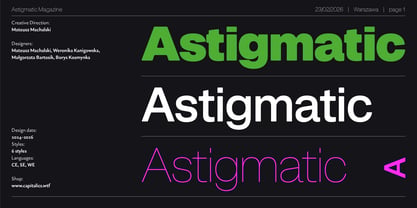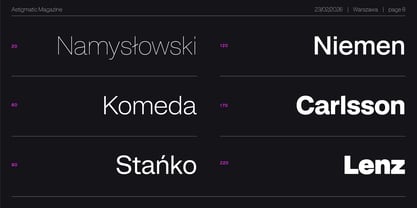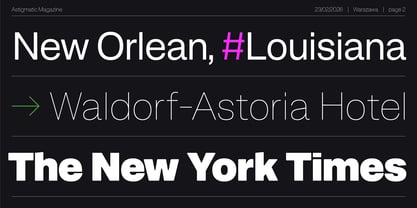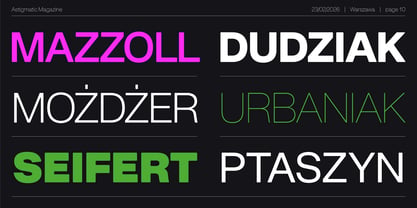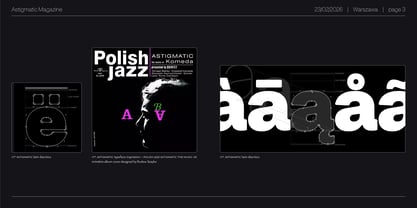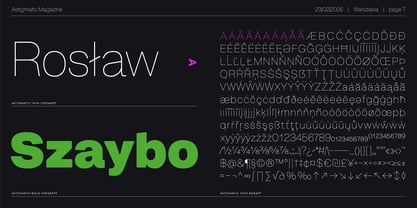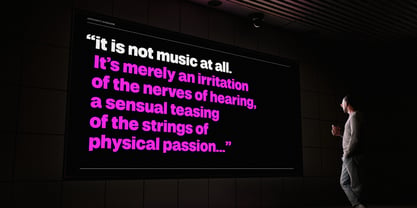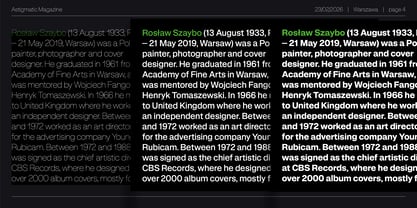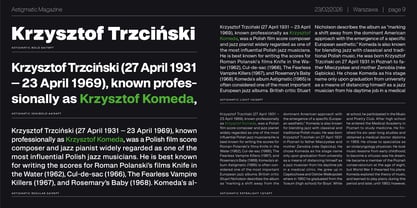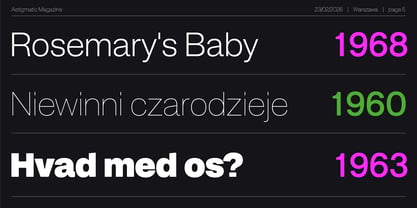
Astigmatic
by Machalski
The Astigmatic Font Family was designed by Mateusz Machalski and published by Machalski. Astigmatic contains 6 styles and family package options. More about this family
Astigmatic is an original reinterpretation of geometric grotesques from 1960–1989, a period when printing and typesetting technologies actively shaped letterforms. The tension between geometric precision and occasional “pulsation” of form emerged from the realities of working with Letraset, phototypesetting, and hand-traced lettering for design projects. It was in these processes that slight shifts, ink spreads, and imperfections creating truly unique characters. Astigmatic consciously embraces this visual language, treating the “error” as an expressive value rather than a flaw. The typeface has a strong, poster-driven character and works especially well in visual identities, titles, posters, and covers. One of its key inspirations is the work of Rosław Szaybo, particularly his designs for Krzysztof Komeda, rich in rhythm, tension, and visual ambiguity. Astigmatic does not pretend to be neutral; instead, it builds a narrative and insists on being noticed. Design team: Mateusz Machalski, supported by: Weronika Kanigowska, Małgorzata Bartosik & Borys Kosmynka
Dr hab. Mateusz Machalski, Associate Professor (b. 1989) – Vice-Rector for Artistic Affairs at the Academy of Fine Arts in Warsaw. Designer, typographer, lecturer and researcher specializing in visual communication and graphic design. He graduated with Rector’s Honours from the Faculty of Graphic Arts at the Academy of Fine Arts in Warsaw (2009–2014), where he currently teaches at the Multimedia Artistic Creation Studio. Named Designer of the Year 2019 at the Polish Graphic Awards, he has been repeatedly awarded in national and international competitions, including KTR, Ascender 2018 – Type Directors Club New York, MUSTHAVE, The DieLine, Red Dot Design, The Best of Design 2018 – Klub Twórców Reklamy, and Animator 2020 – DESIGN ALIVE. He is a five-time recipient of the Polish Ministry of Culture’s scholarship, a laureate of the Ministry of Science and Higher Education’s scholarship for outstanding young researchers, and of the “Young Poland” programme by the National Centre for Culture. He was awarded the Centennial of Regained Independence Medal by the President of Poland. He is a curator and member of the programme board of the International Poster Biennale in Warsaw, and Art Director of the magazines newonce paper and Warsawholic. He has created more than 80 typeface families – including numerous corporate and multi-script designs – and over 200 visual identities for companies, institutions and cultural events. His fonts are distributed through platforms such as Google Fonts, Adobe and Monotype, and his clients include leading Polish and global brands. He has led teams digitizing key works of Polish typography, including “Półtawski Nowy”, “BRYGADA 1918” (launched at the Presidential Palace), and carried out the long-term “Bona Nova” project together with Andrzej Heidrich – the designer of Polish banknotes. He co-created Typoteka – the first Polish index of typography (1474–2024). Co-founder of the first Polish type foundry – Capitalics. He is also the author of numerous texts, articles and exhibitions on graphic design and visual culture, as well as the “Creative Typography” course published by Design Practice. He conducts research projects, workshops and lectures at universities and conferences in Poland and abroad.